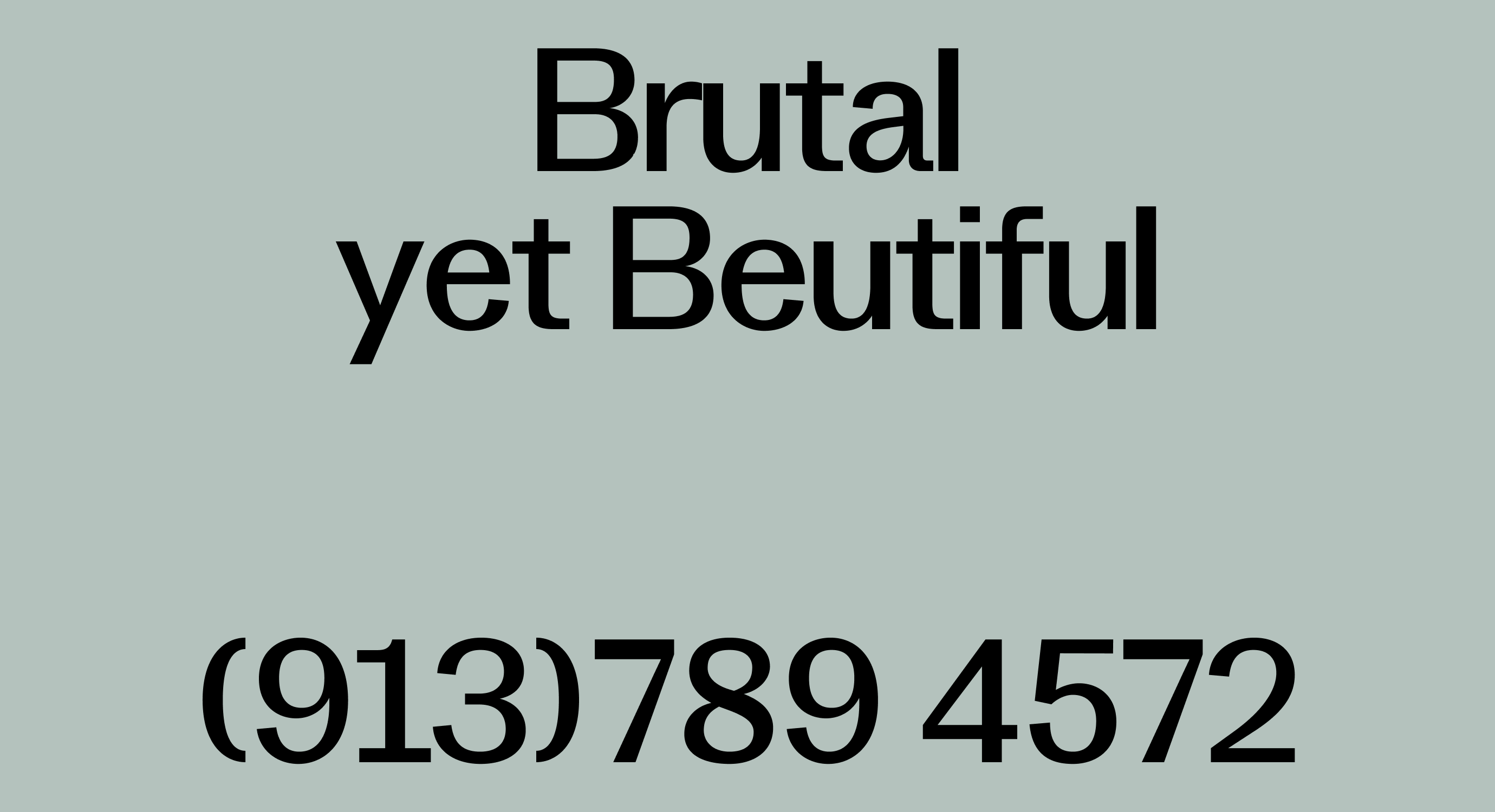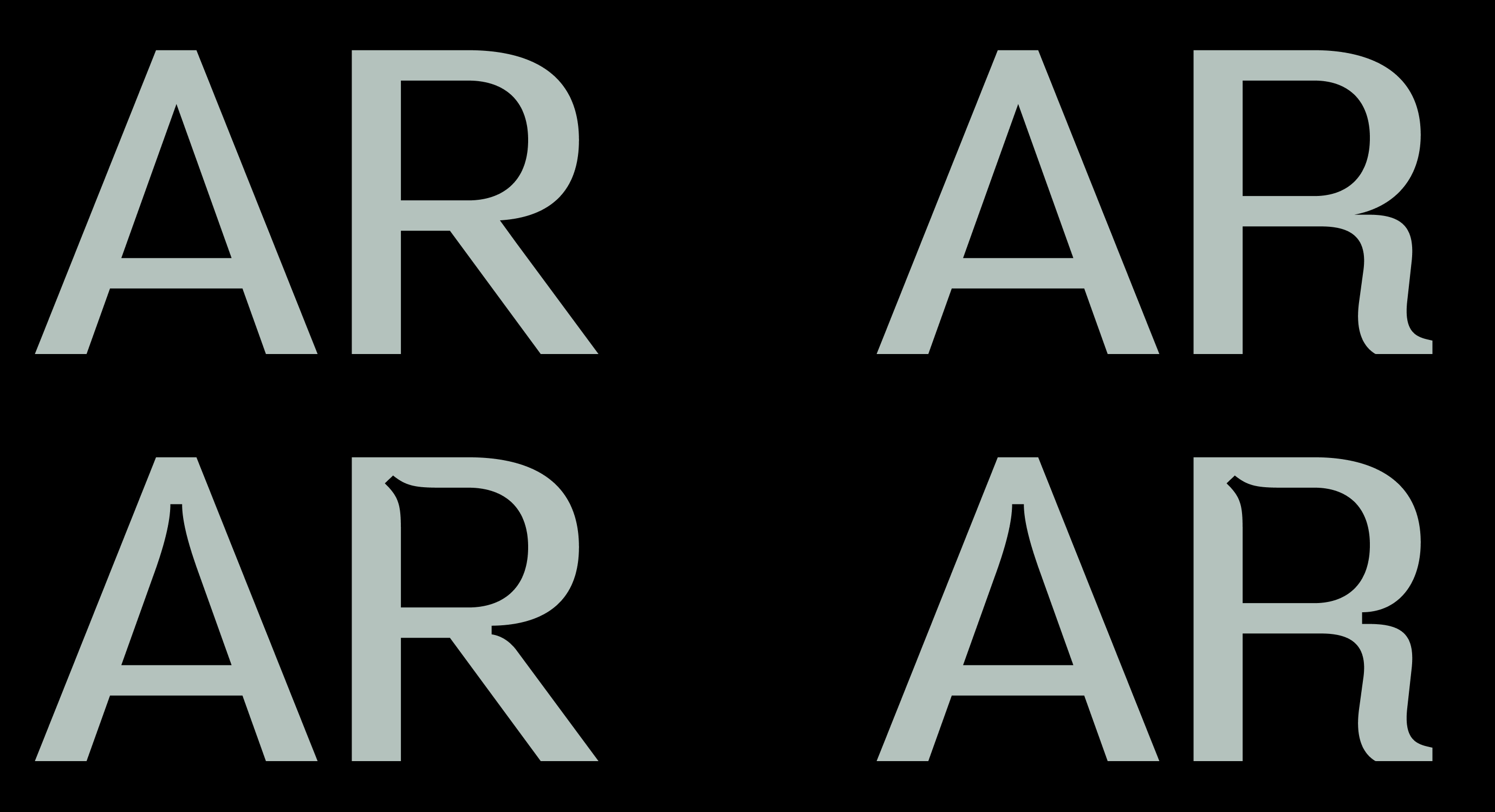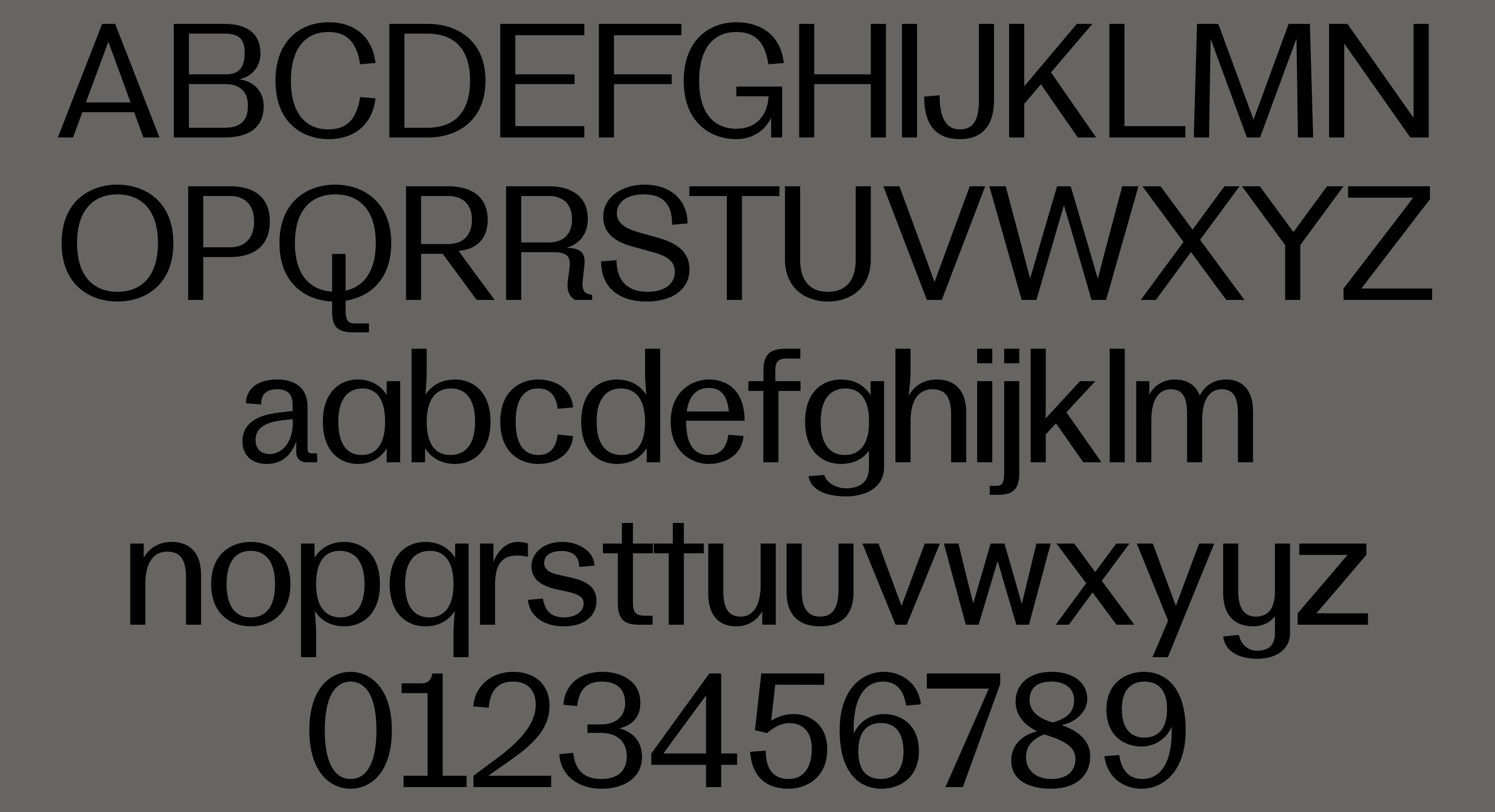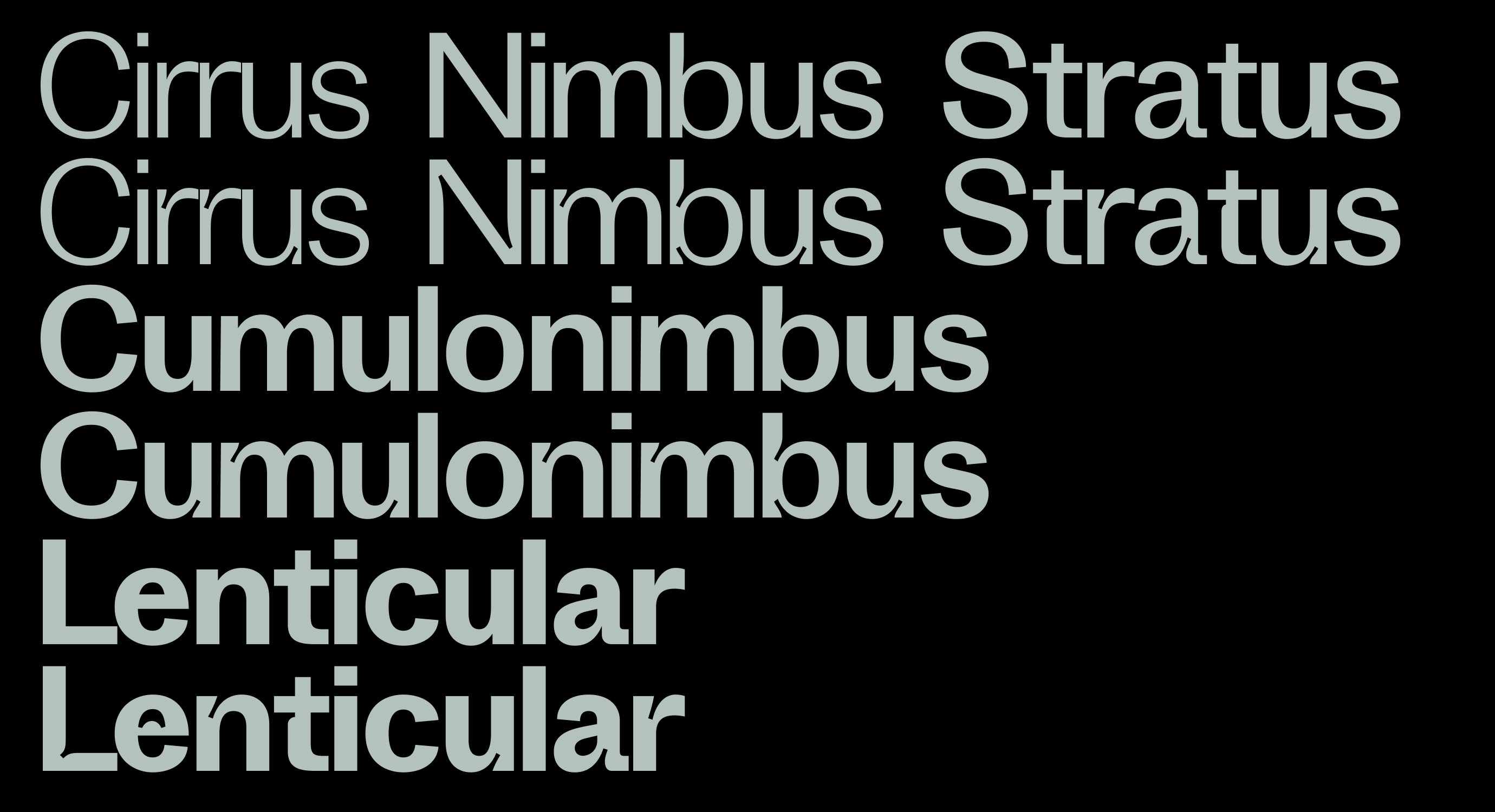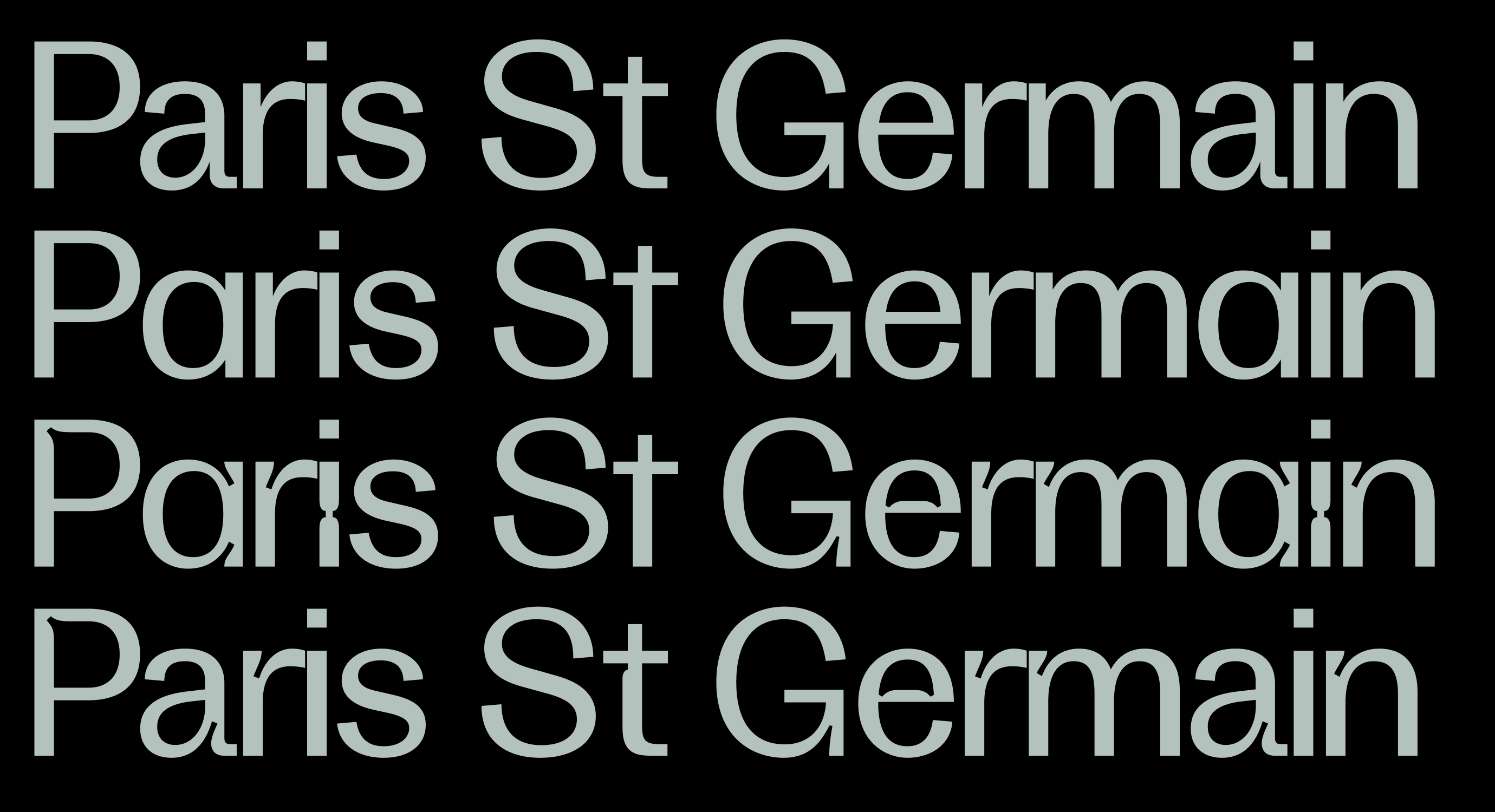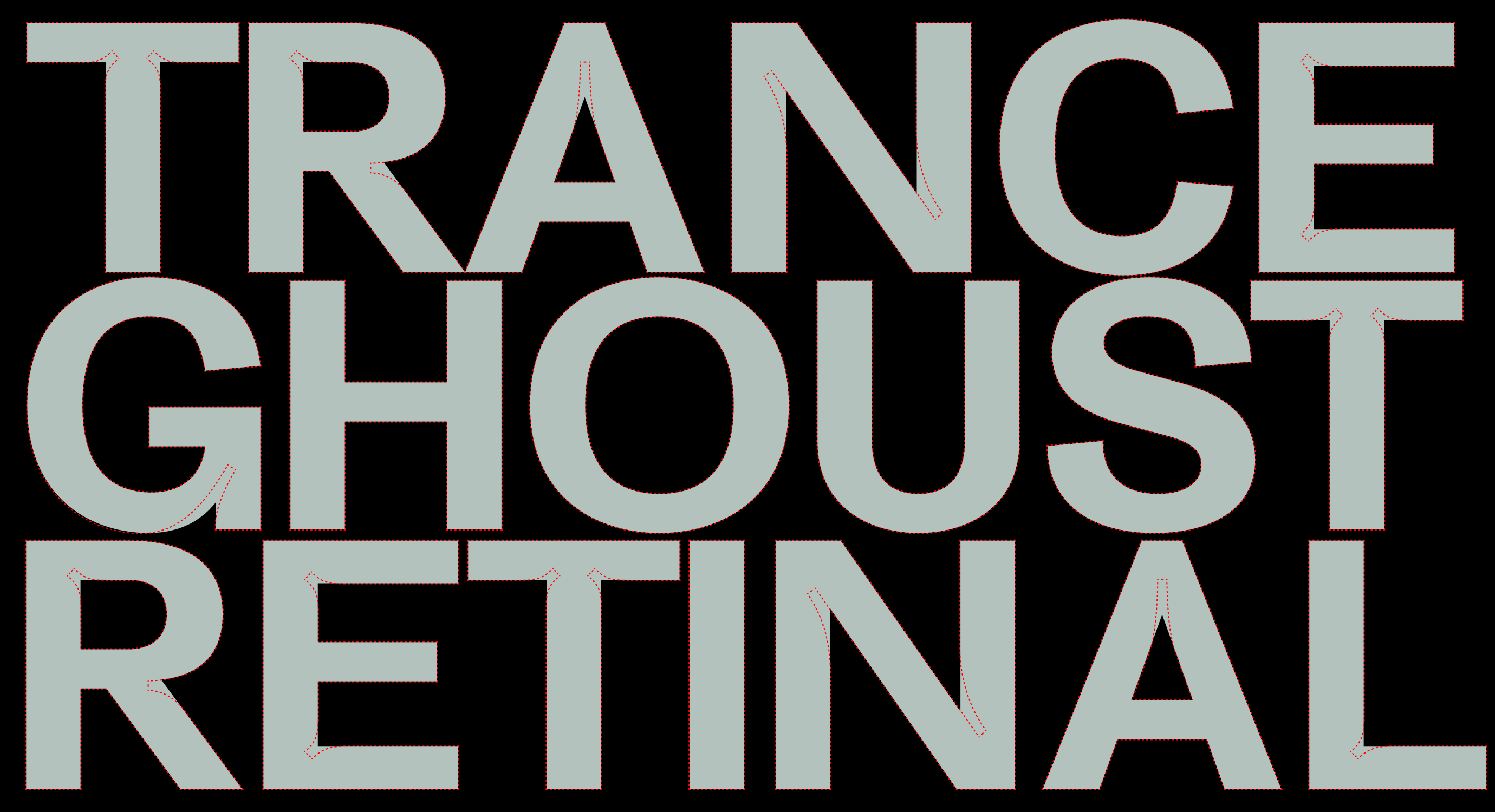
AF Toscani
AF Toscani is beautiful but brutal, balancing expressive forms with a sense of discipline and control, expressive forms are tempered by hard structure. Massive ink traps cut deep into the letterforms, and can be switched on or off—part functional necessity, part stylistic weapon. Bold without being unruly, Toscani knows exactly how far above the law it can go.